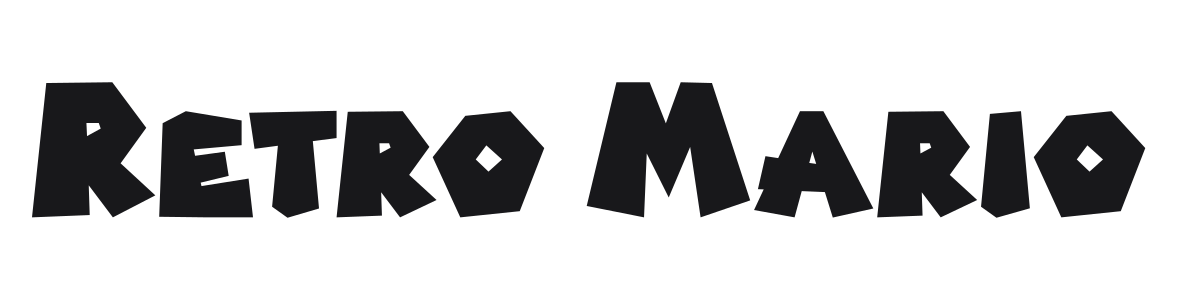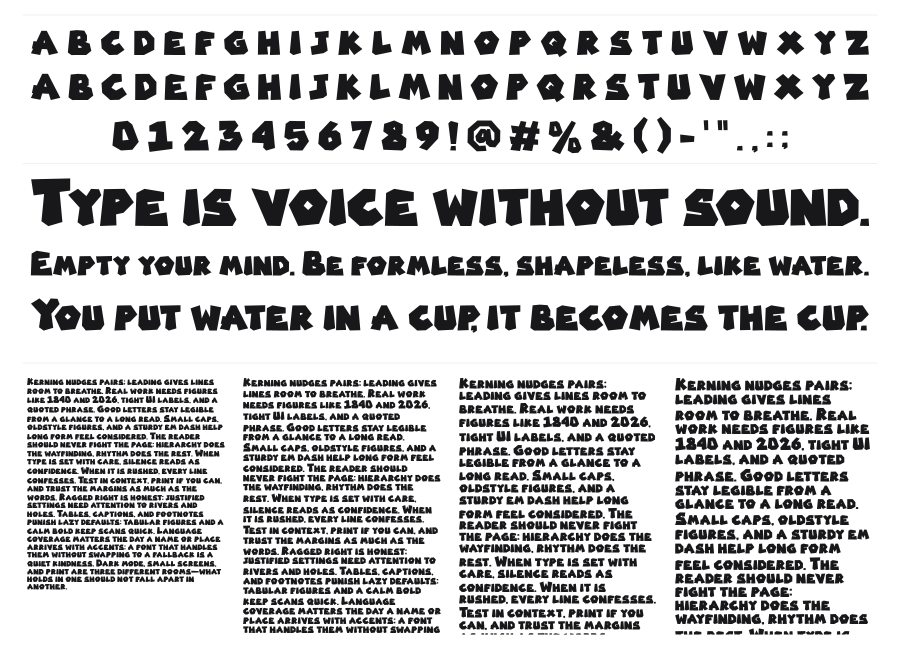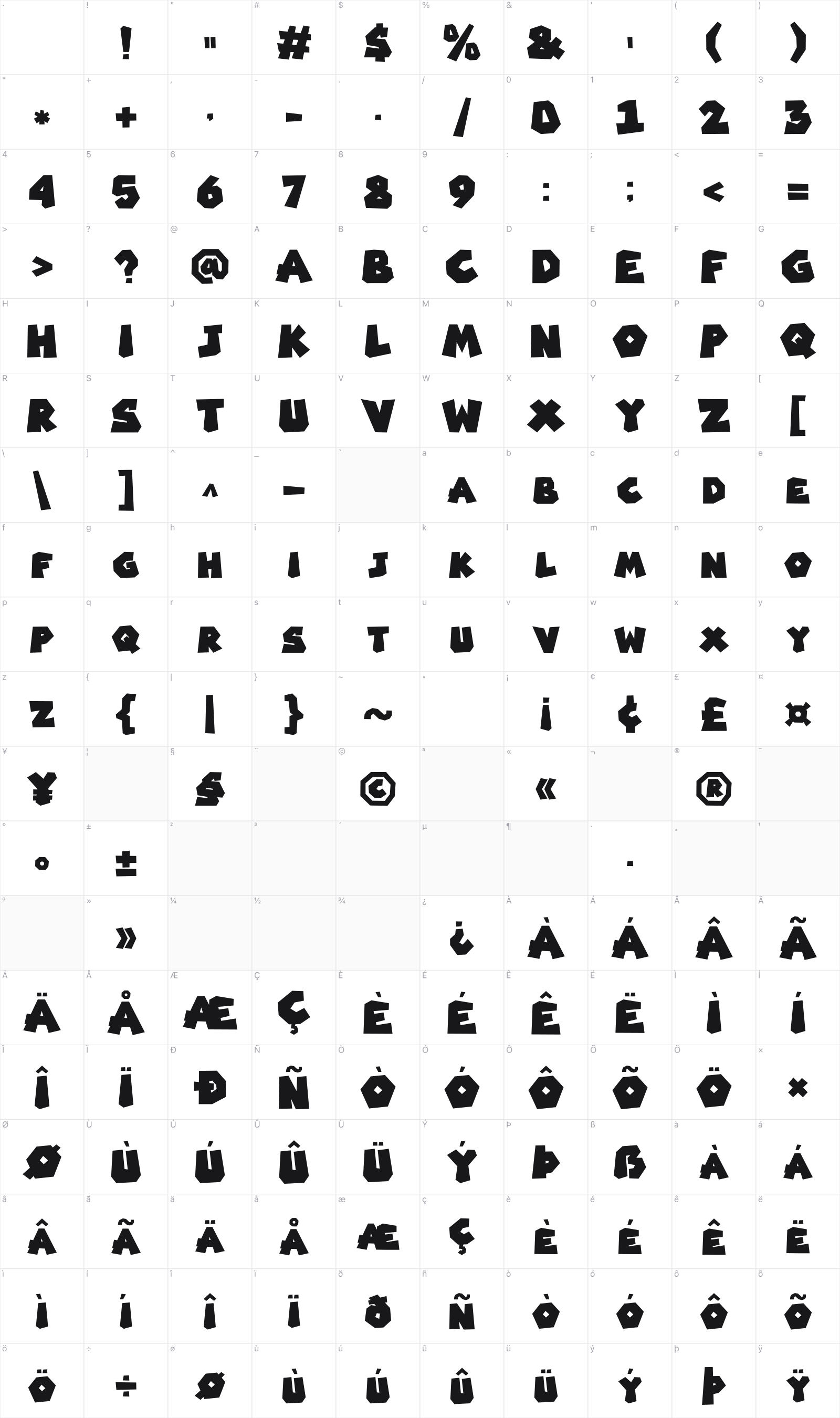
Retro Mario
Retro Mario is a heavy display font channeling the chunky, hand-lettered energy of 1980s video game packaging and arcade graphics. Each character is thick and irregular, with rough edges and slightly warped angles that feel deliberately imperfect rather than polished. It brings immediate nostalgia to gaming, kids' entertainment, and any project that wants bold retro personality.